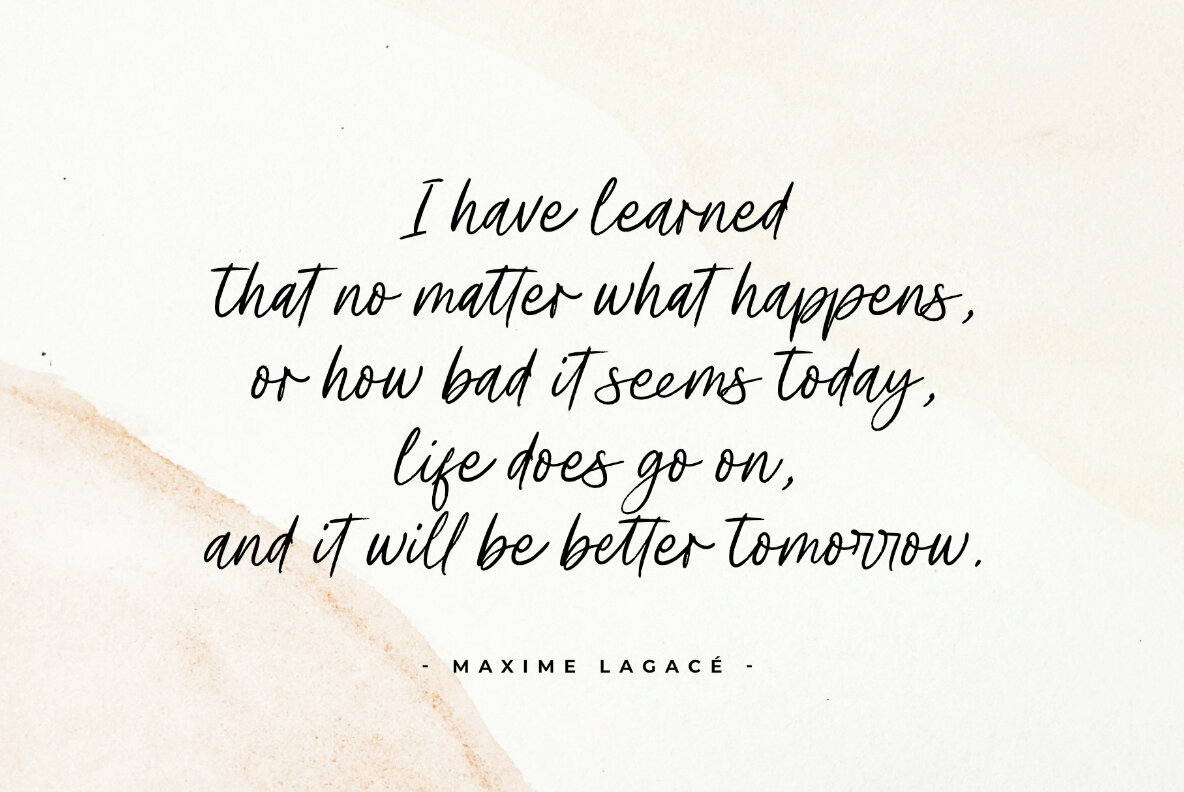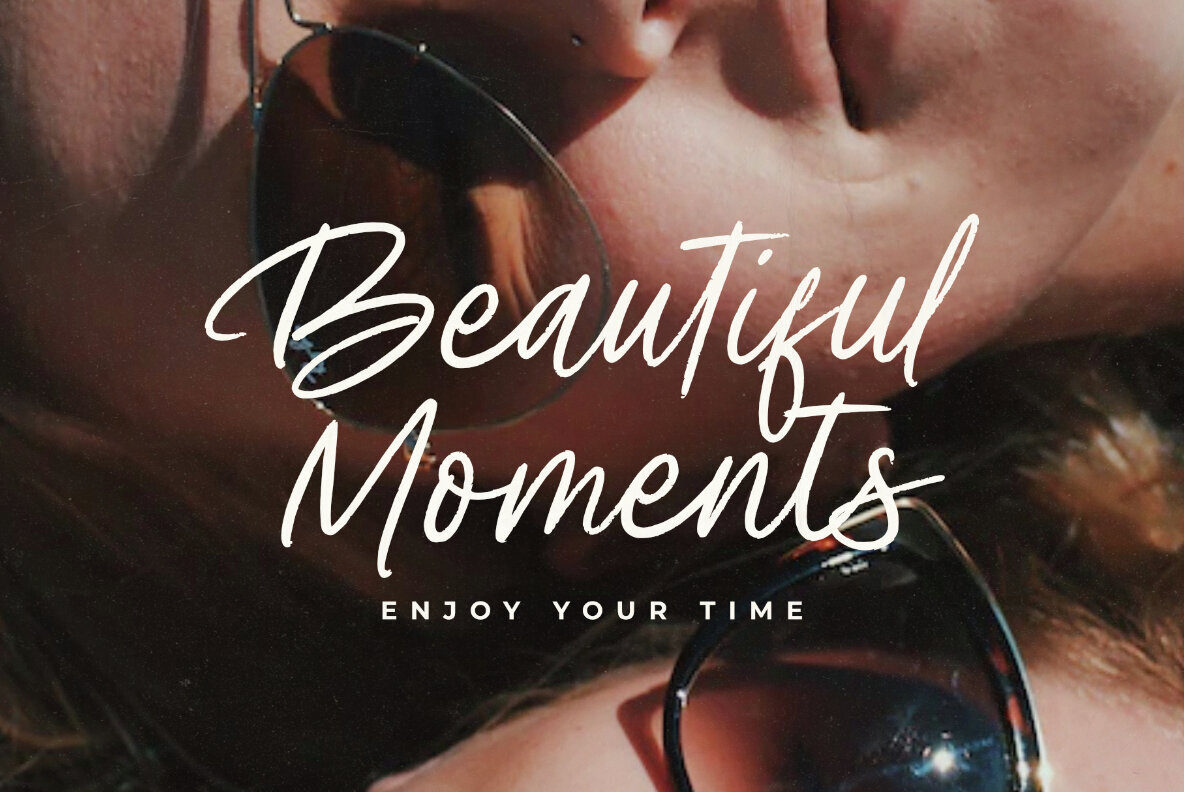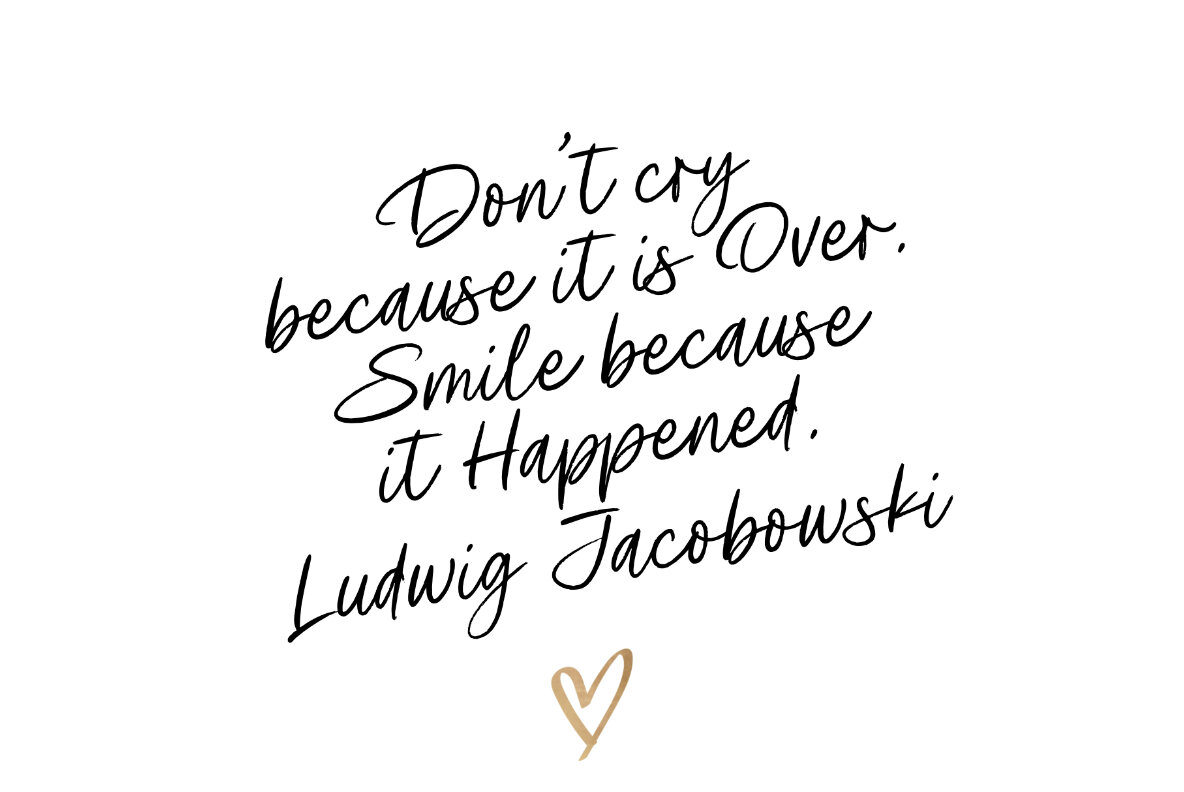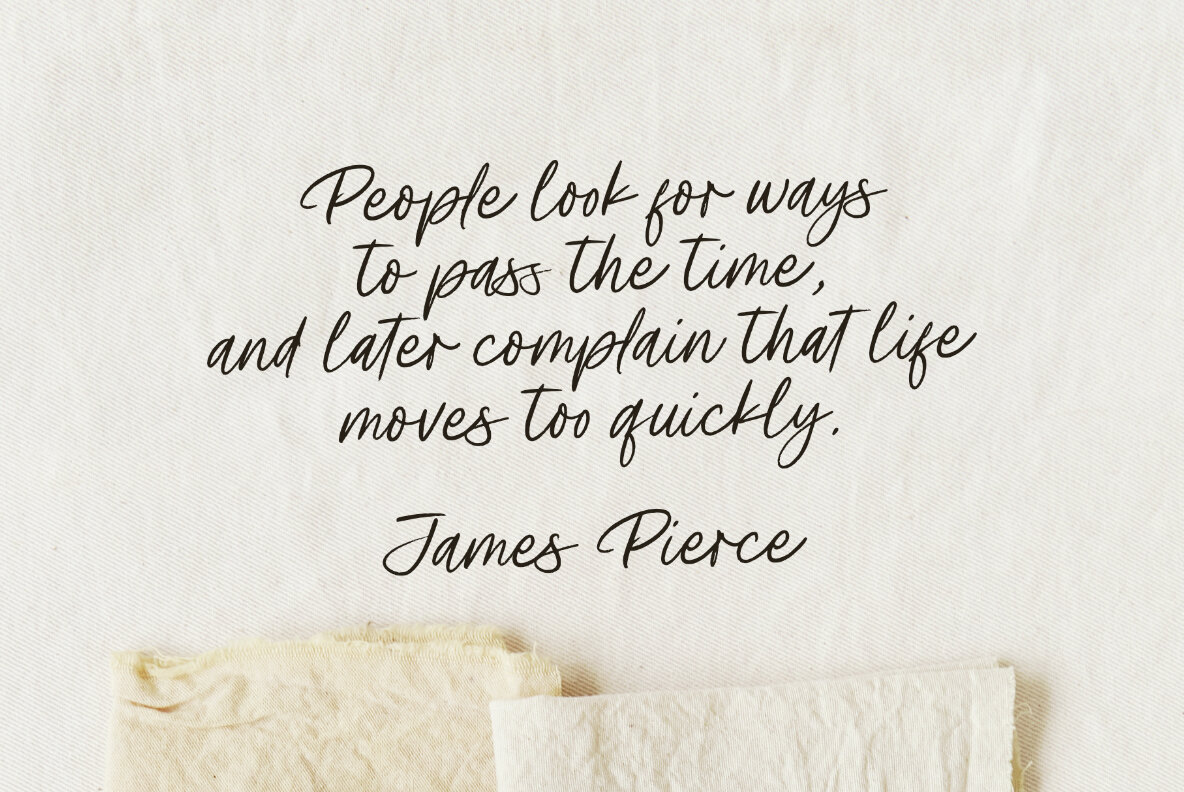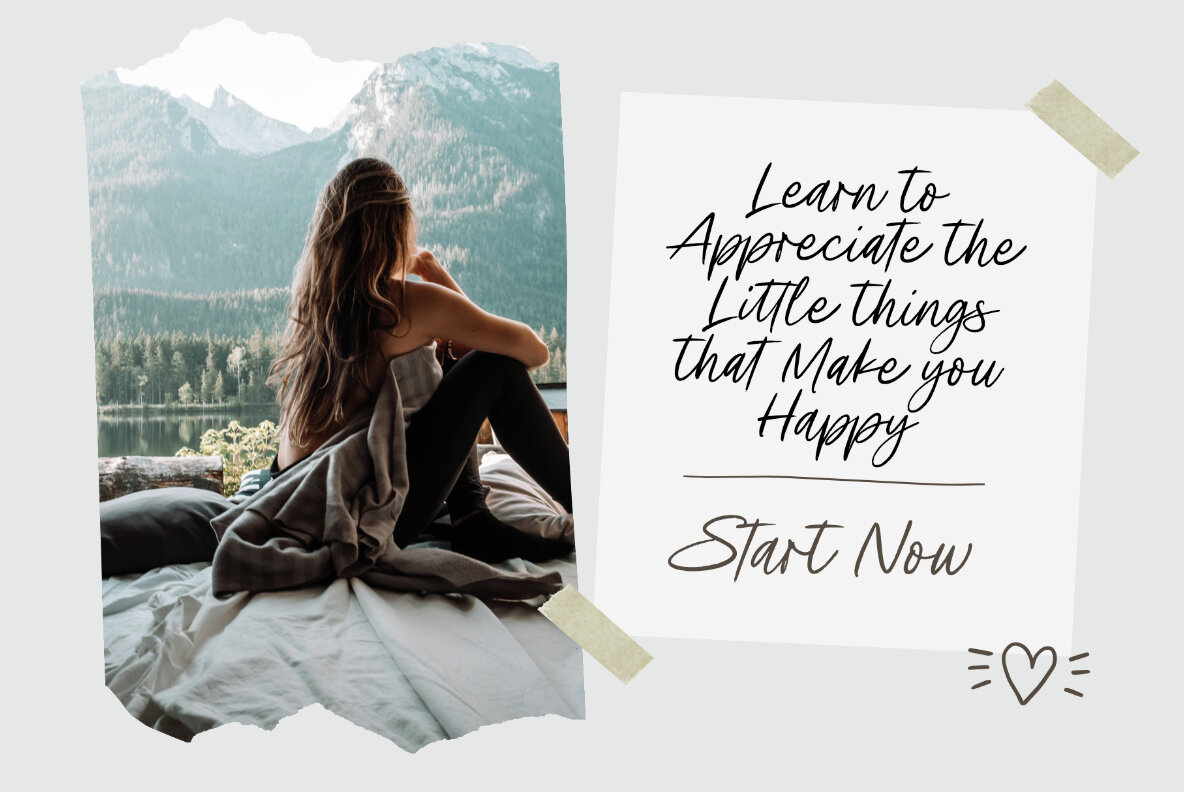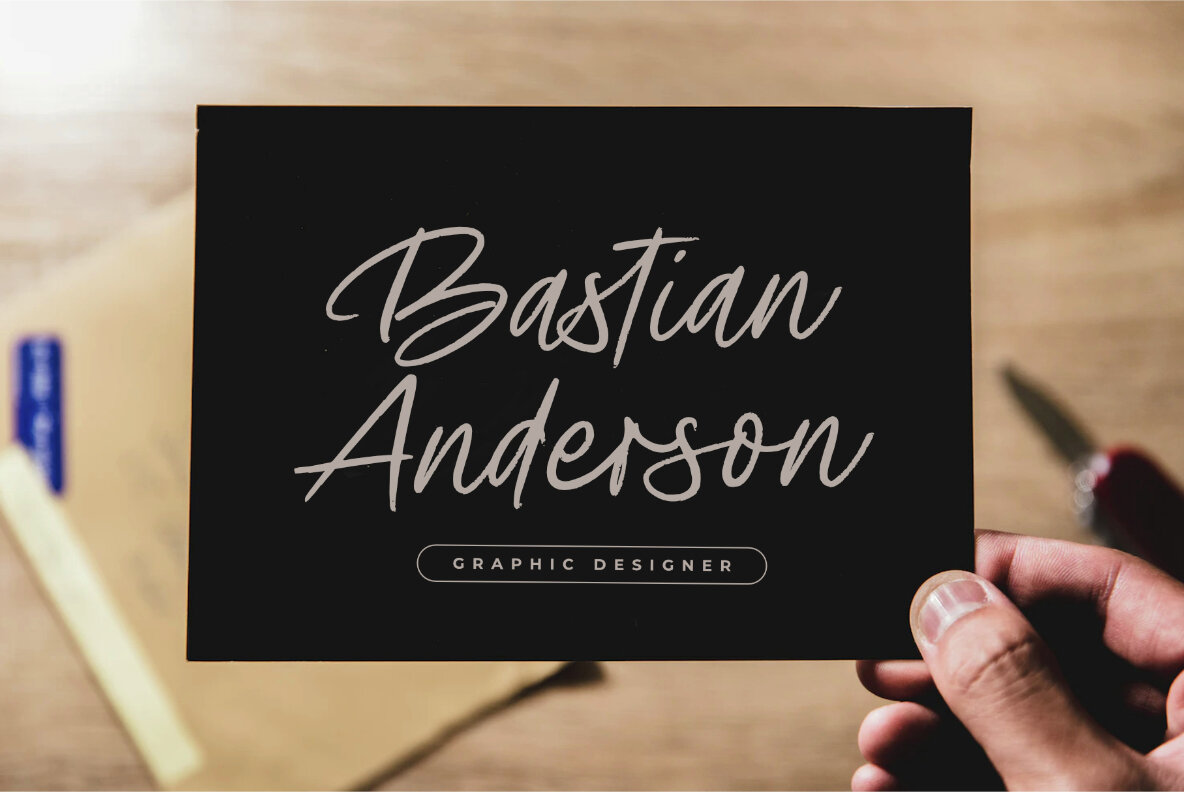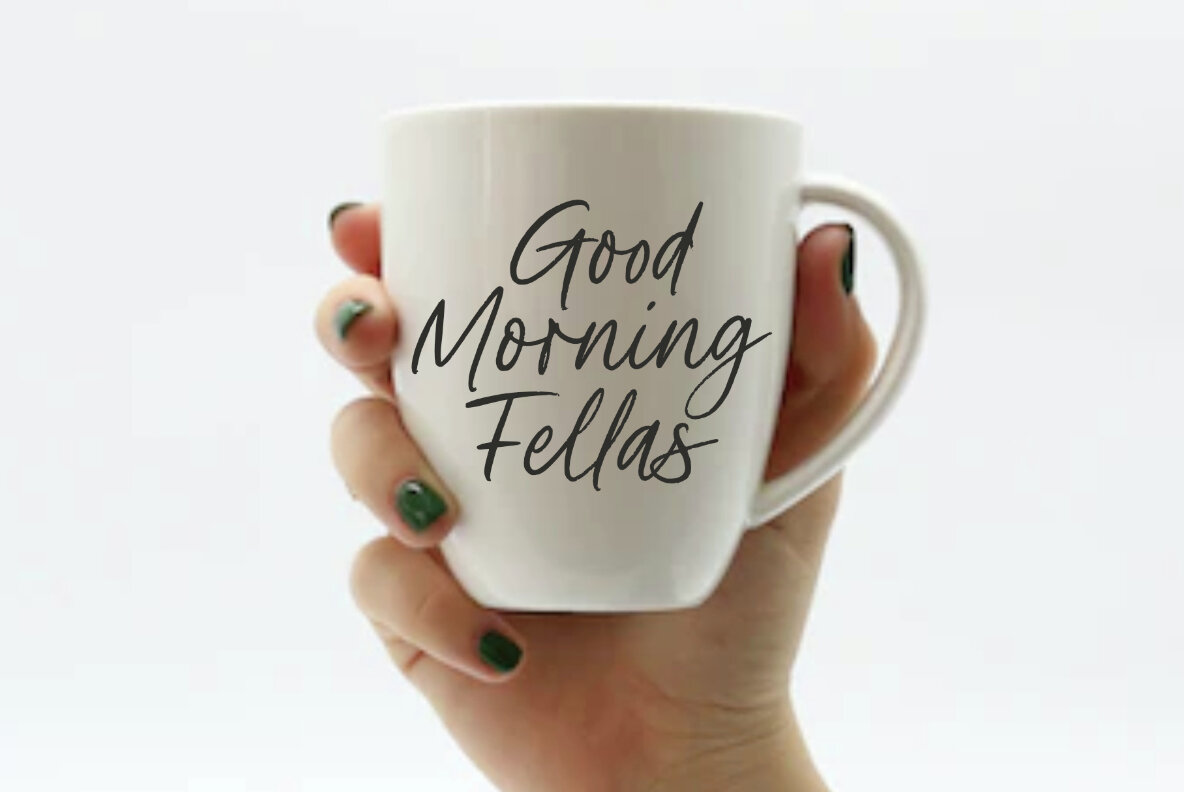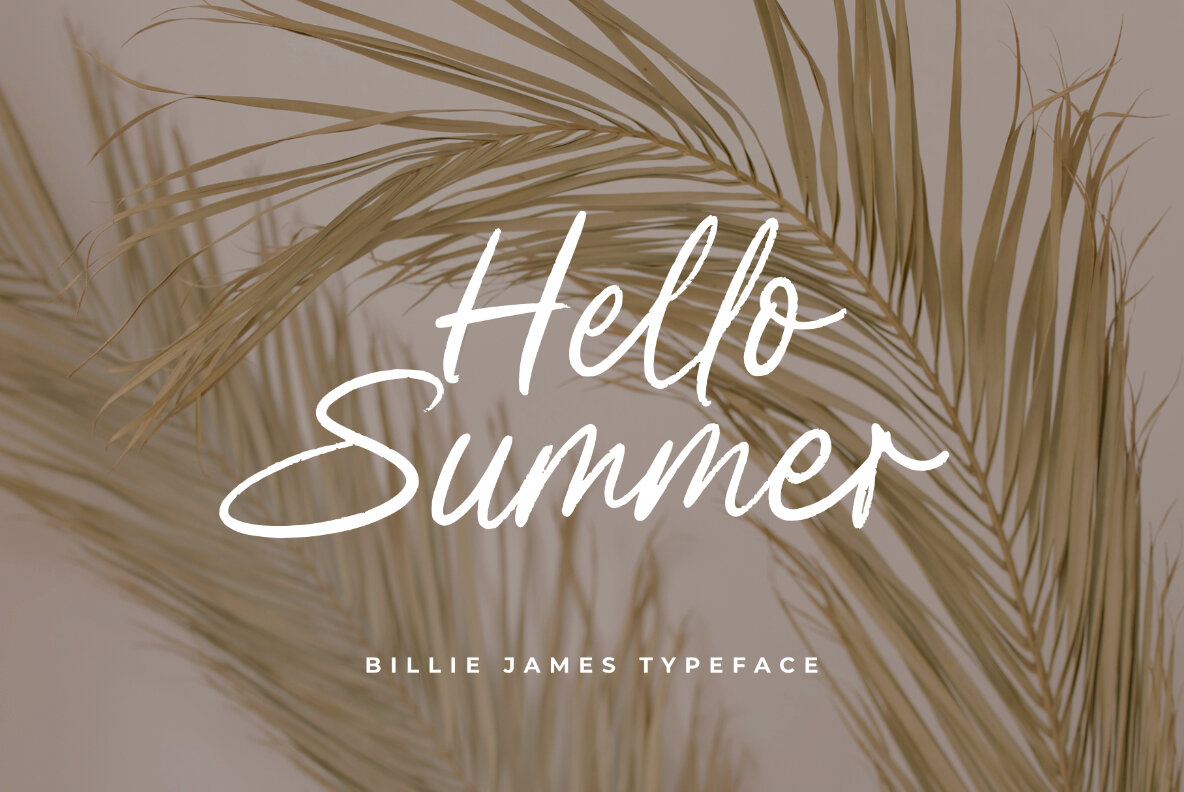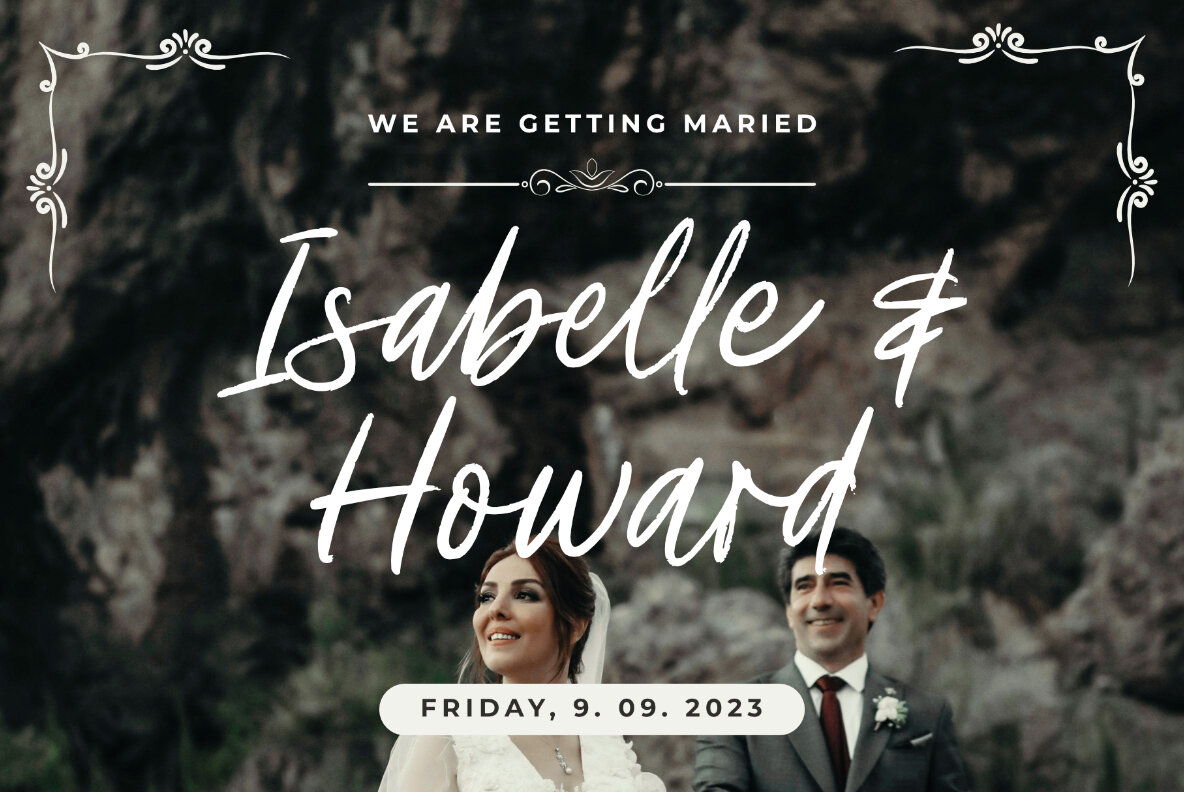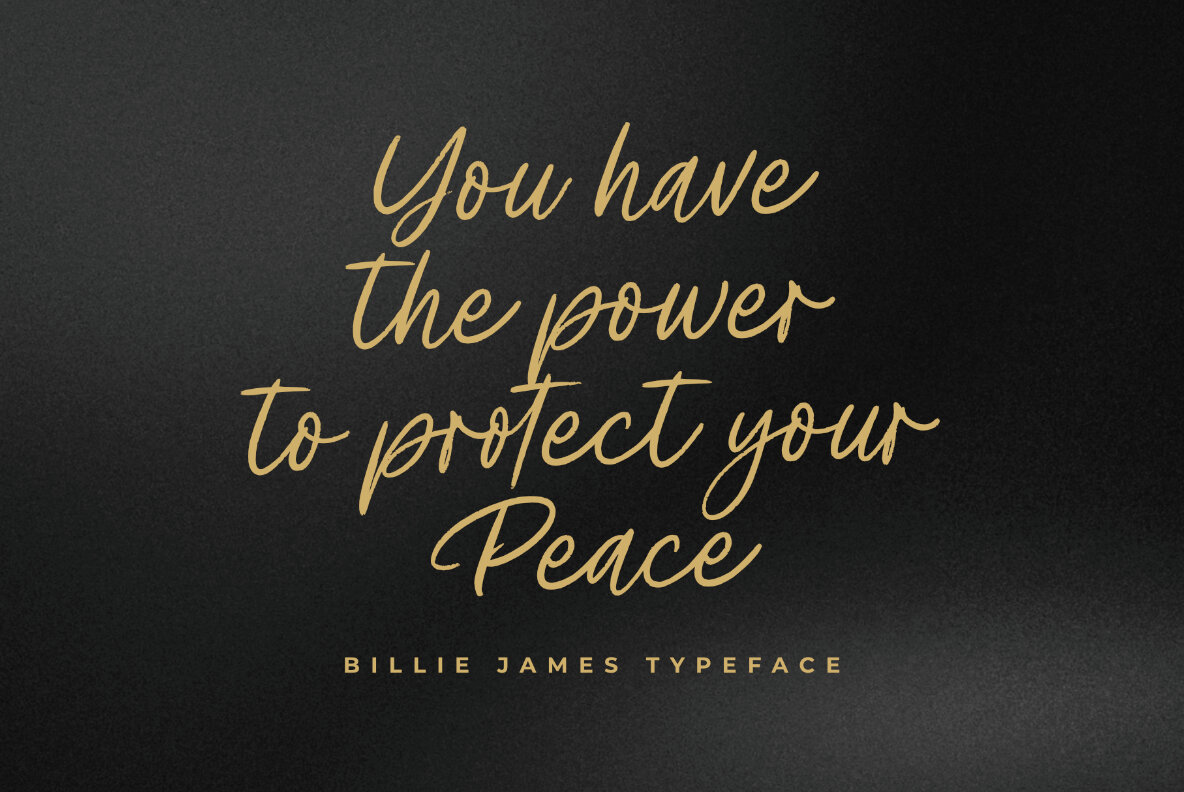
Billie James Font
Billie James Regular
Billie James is a sophisticated and elegant script font that exudes timeless beauty and grace. With its fluid and graceful letterforms, this font brings a touch of refinement and luxury to any design project. Inspired by classic calligraphy, Billie James is perfect for wedding invitations, high-end branding, and any project that requires a touch of sophistication and charm. Its cursive strokes and gentle curves create a sense of movement and rhythm, adding a sense of elegance to your designs. Whether you're creating logos, packaging, or editorial designs, Billie James will effortlessly elevate your work to new heights. The font's versatile nature allows it to adapt to various contexts, making it suitable for both digital and print applications. Embrace the elegance and beauty of Billie James script font and watch your designs flourish with a timeless allure